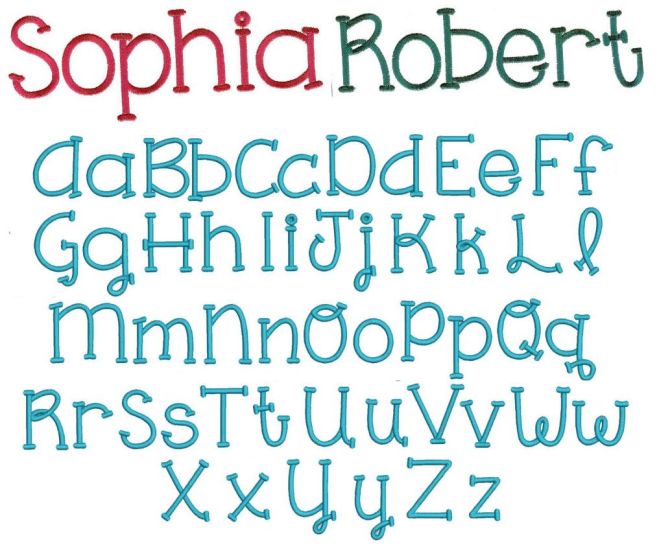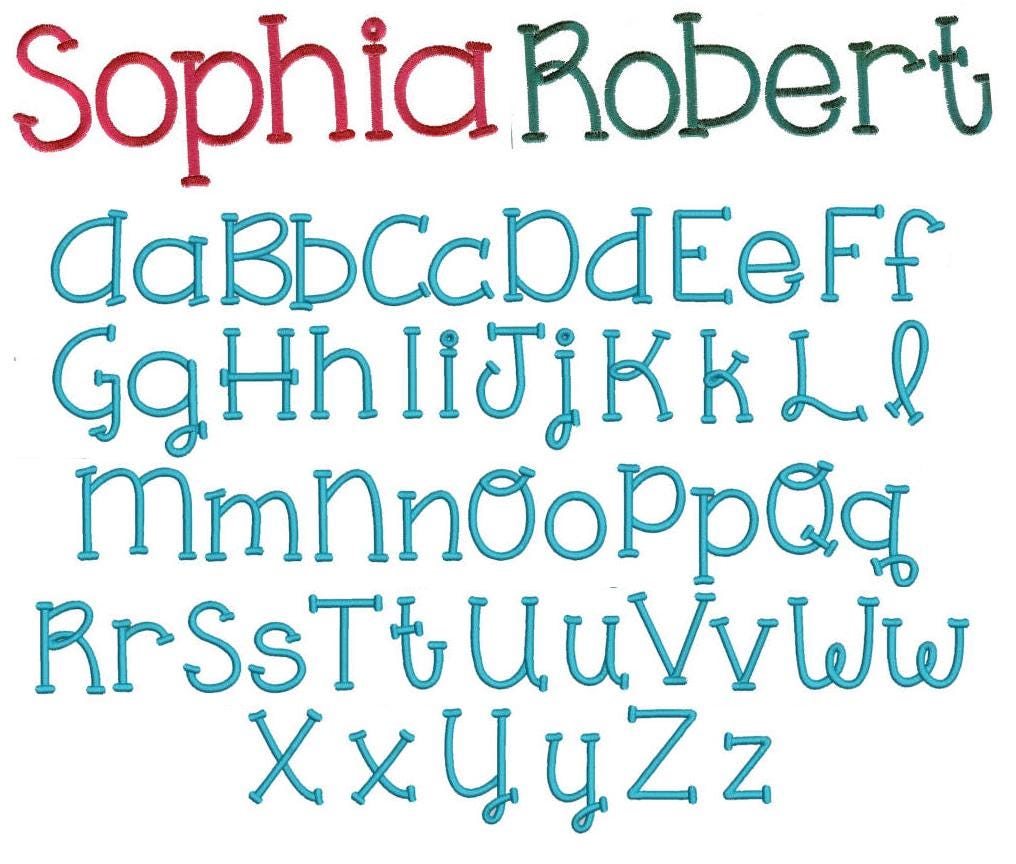
One Thing Satin Stitch Embroidery Font
Nice clean font ...great for boys or girls! All of our fonts are 100% manually digitized to bring you excellent stitch quality.